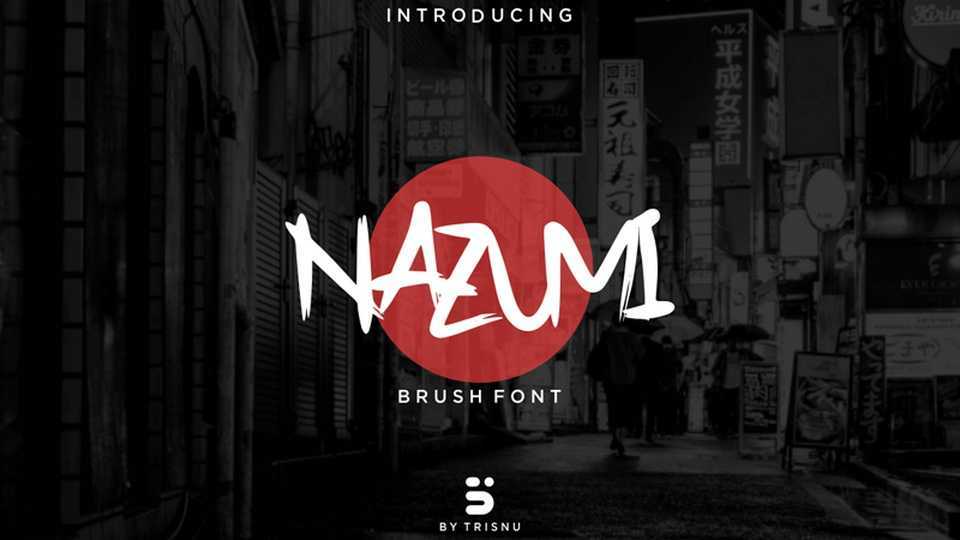
Dowvload Nazumi, font, a hand painted brush typeface. Nazumi can be used for posters, t-shirt prints, handwritten quotes, product packaging, merchandise and more.
Designer: Trisnu Wardani